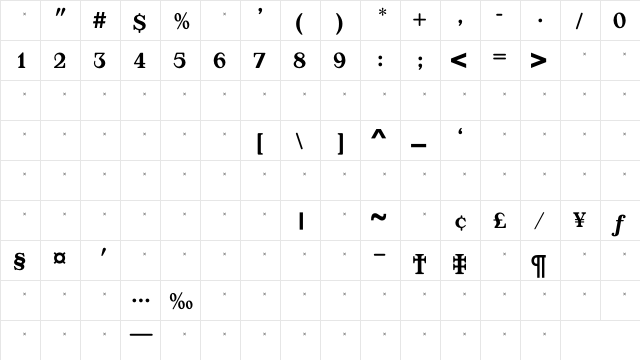
AppleyardMediumTab Regular
Design Context for AppleyardMediumTab Typeface
AppleyardMediumTab takes a measured approach to typography — its balanced proportions and neutral character make it a reliable workhorse for both digital and print work.